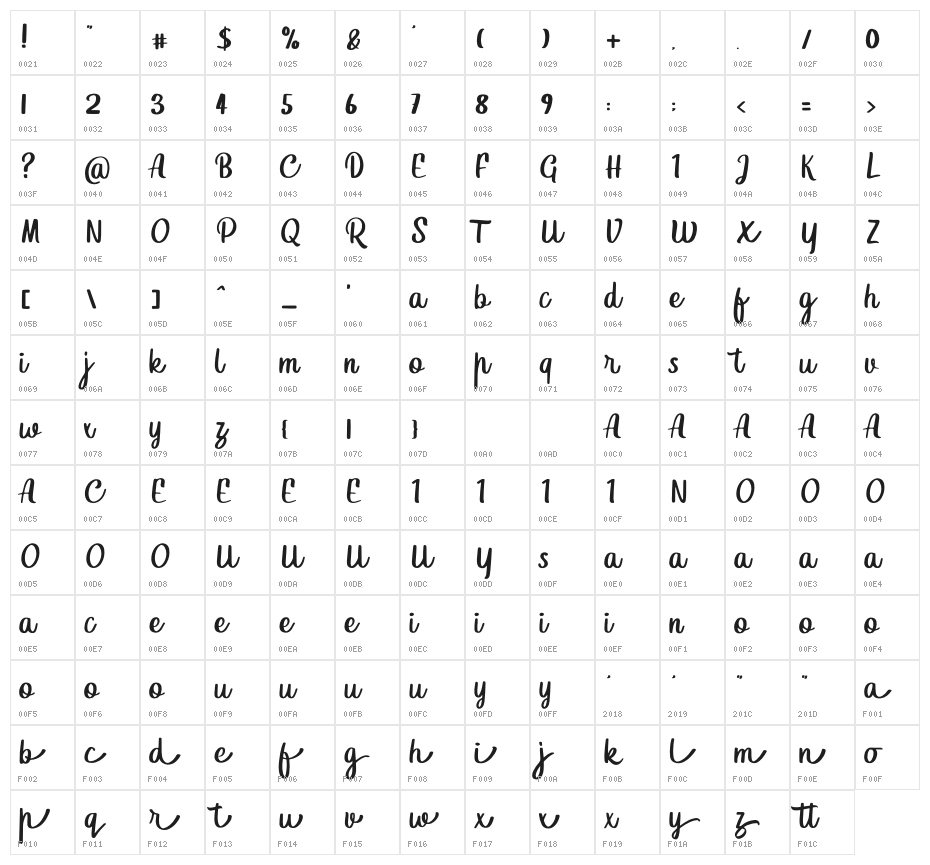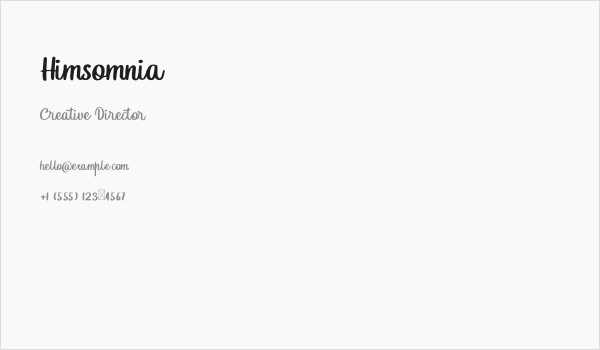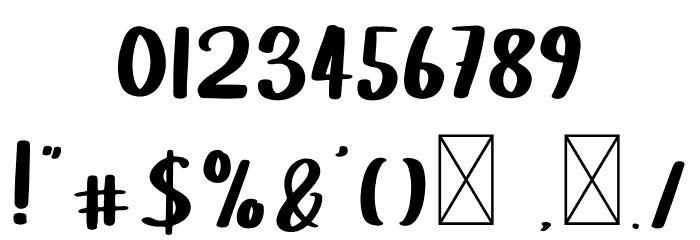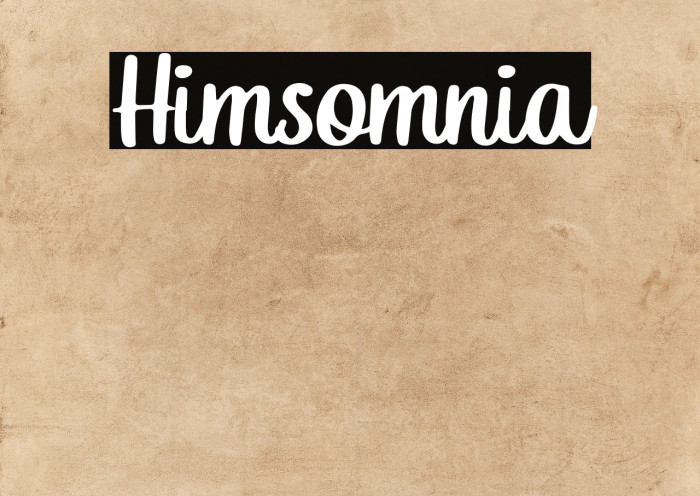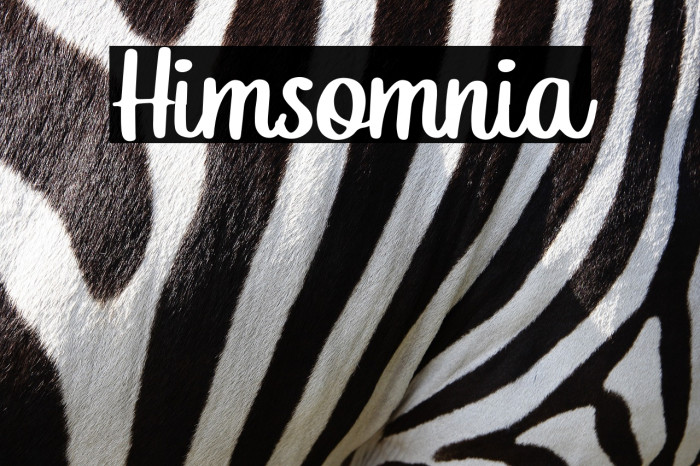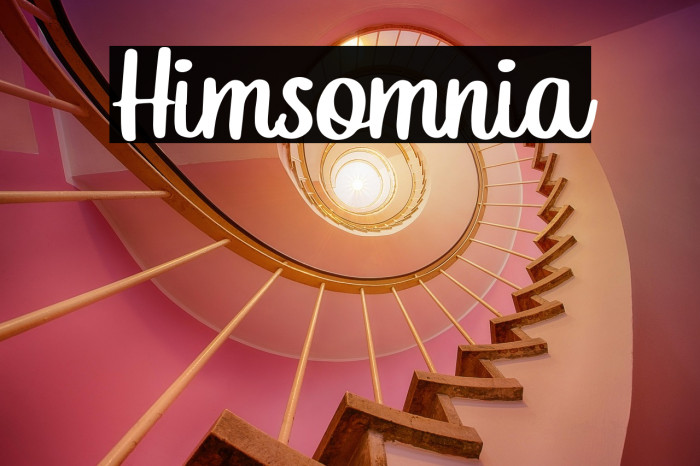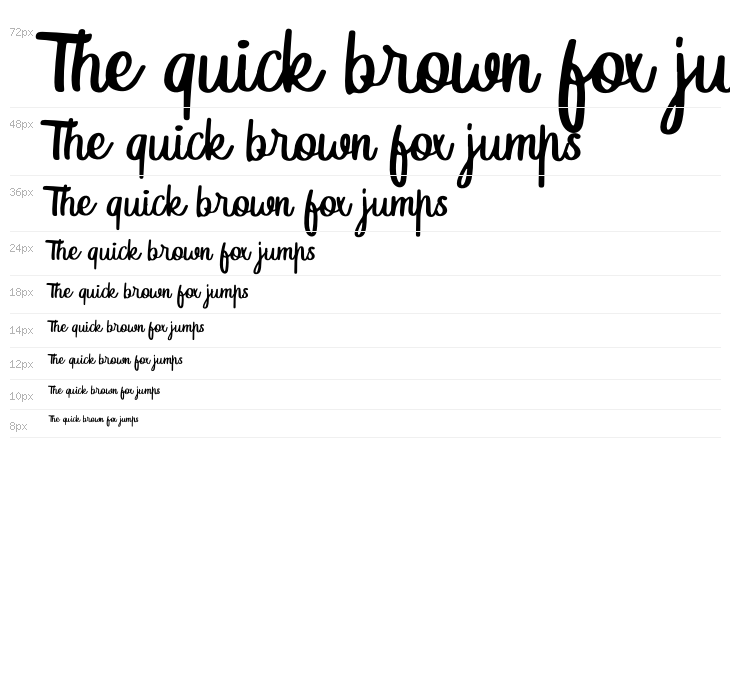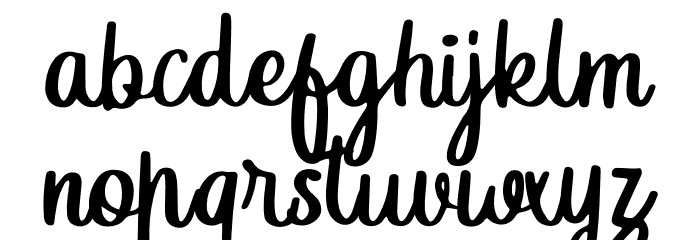
Himsomnia Font
Himsomnia Description
This font features a bold and playful script style, characterized by its smooth, flowing curves and slightly irregular strokes that give it a hand-drawn appearance. The uppercase letters are tall and elegant, with a slight slant that adds a dynamic feel. Lowercase letters maintain a consistent flow, enhancing readability while retaining a casual, friendly vibe. Numbers and special characters are designed to match the overall aesthetic, ensuring a cohesive look across all text. The font's boldness makes it stand out, while its script nature adds a touch of sophistication and creativity.
| Proposed Projects | Ideal for branding, invitations, greeting cards, and creative projects that require a personal touch. |